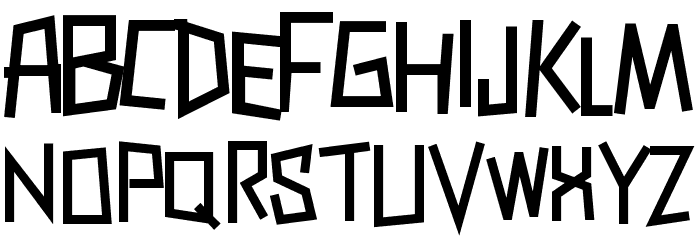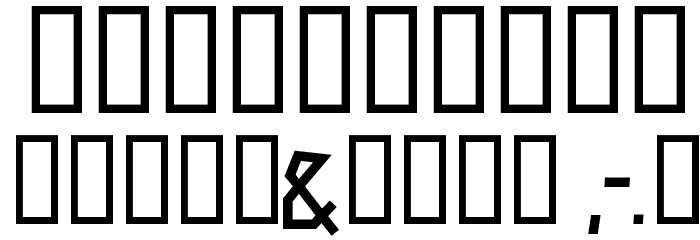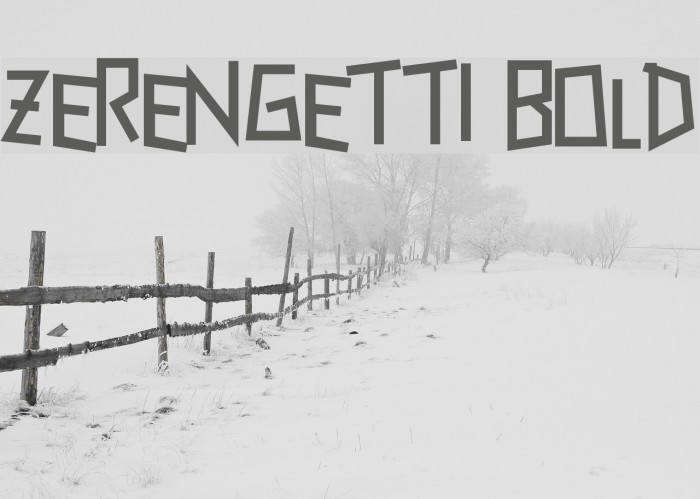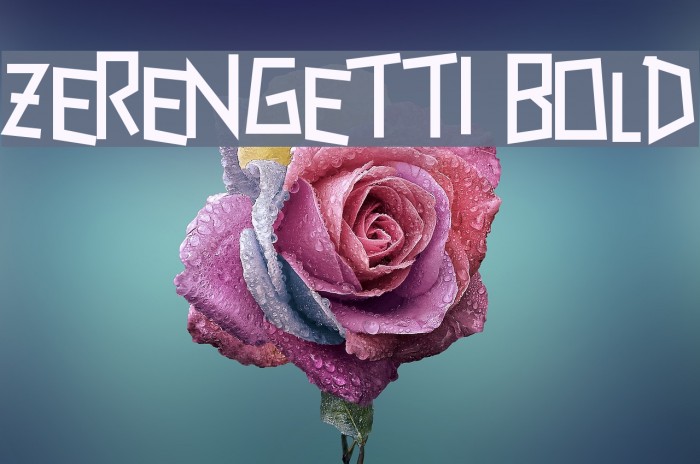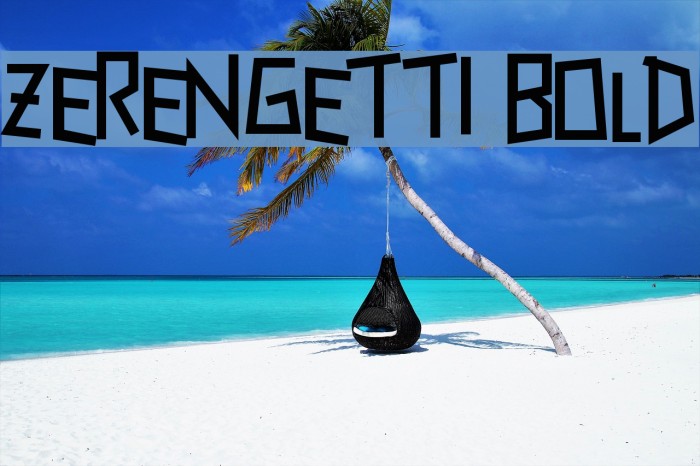
Zerengetti Bold Font
This font features a bold and angular design with a distinct geometric style. The characters are constructed with sharp, straight lines and a blocky appearance, giving it a modern and edgy look. The uppercase and lowercase letters maintain a consistent height, while the numbers and special characters follow the same angular theme. The overall design is striking and attention-grabbing, making it suitable for projects that require a bold statement.
A bold, angular font with a geometric and modern style.
- Proposed Projects: Ideal for posters, logos, headlines, and branding materials that need a strong visual impact.